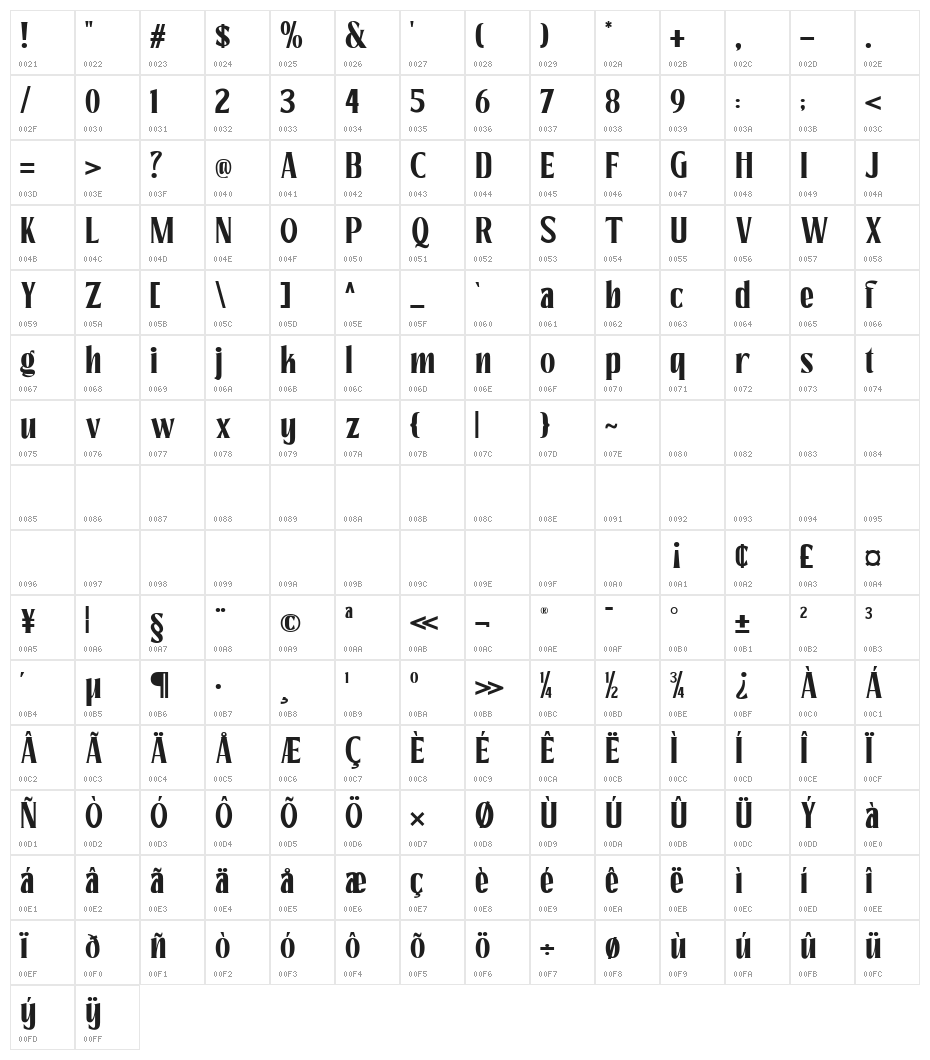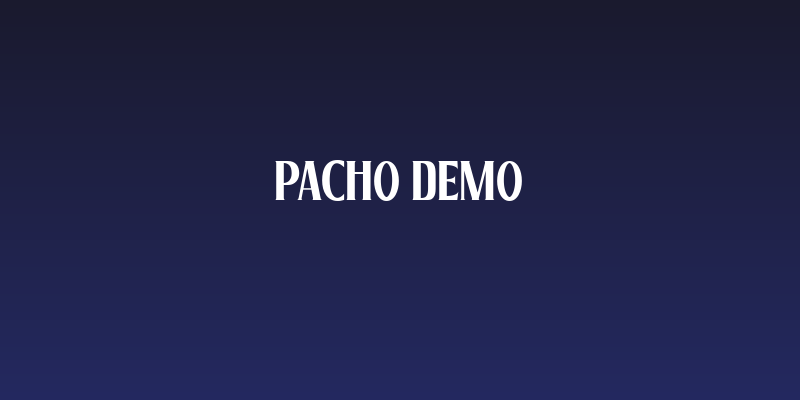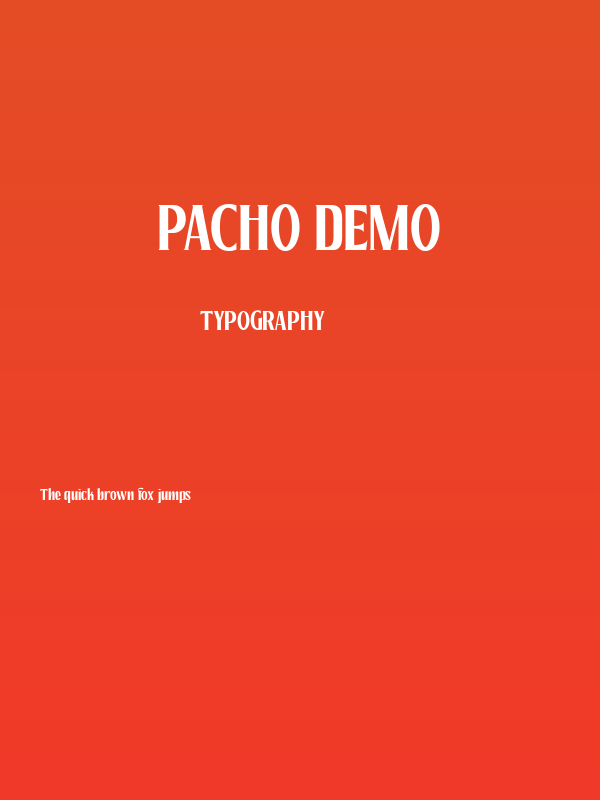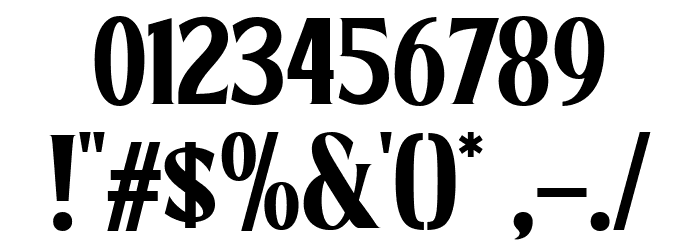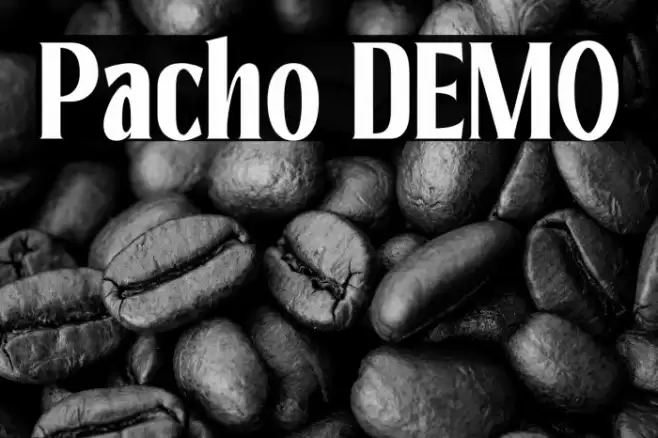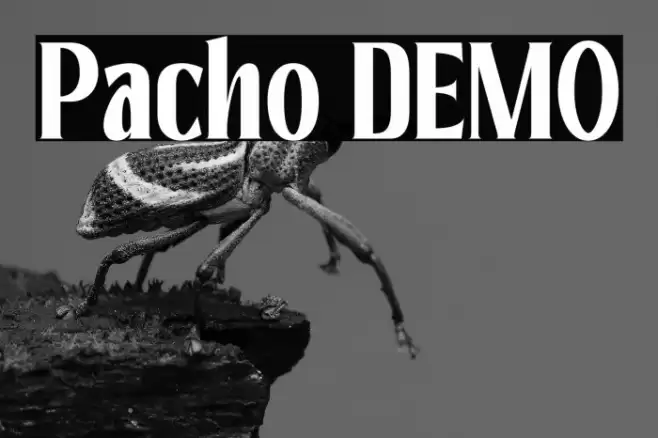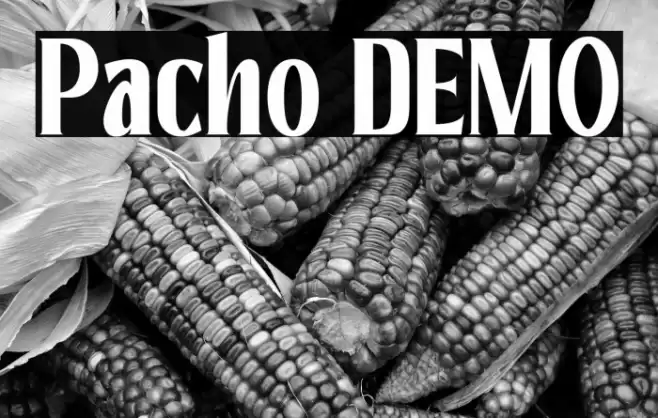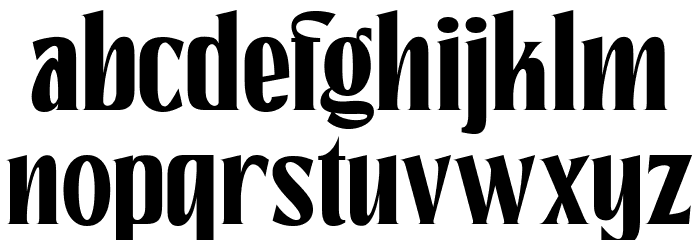
Pacho DEMO Font
Pacho DEMO Description
This font features a bold and dynamic style with a strong presence. The uppercase letters are tall and slightly condensed, giving a sense of authority and impact. The lowercase letters maintain a consistent weight, with unique curves and angles that add character and flair. The numerals are robust and easily readable, complementing the overall boldness of the design. Special characters are crafted with the same attention to detail, ensuring they integrate seamlessly with the rest of the font. This font's distinct style makes it suitable for projects that require a strong visual statement.